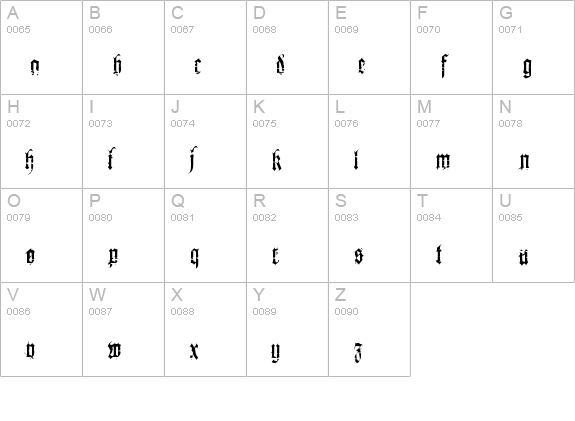
heresy Font Details
Heresy font is a striking and bold typeface that pushes the boundaries of traditional design. With its unique blend of sharp angles and flowing curves, this font is perfect for making a statement in your projects. Whether you're looking to add a touch of rebelliousness or a hint of edginess, Heresy font delivers with its unconventional style. And the best part? Heresy font is completely free to download at FontsMarket.com! This means you can easily access this eye-catching font and incorporate it into your designs without breaking the bank. So why settle for ordinary when you can stand out with Heresy font? Download it now and unleash your creativity!